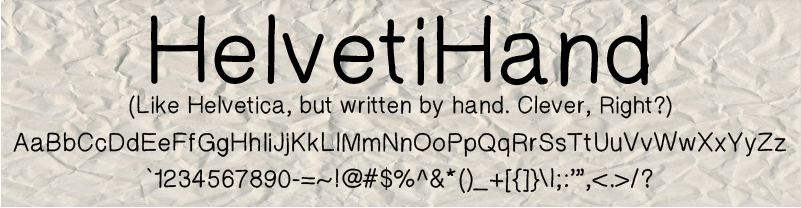
| Font name: | HelvetiHand |
| Author: | Billy Snyder |
| Note by Billy Snyder | |
HelvetiHand is a handwritten font that follows the basic shape structure of Helvetica. Great for cartoons or comics. Feel free to use this font for anything you want. Crediting me would be awesome, but I can't expect everyone to do it, so it is not required. If anything, at least send me a copy of the work when you use it. I love seeing my fonts in action. :) |